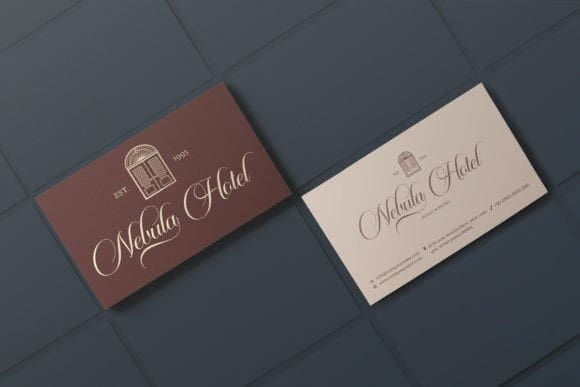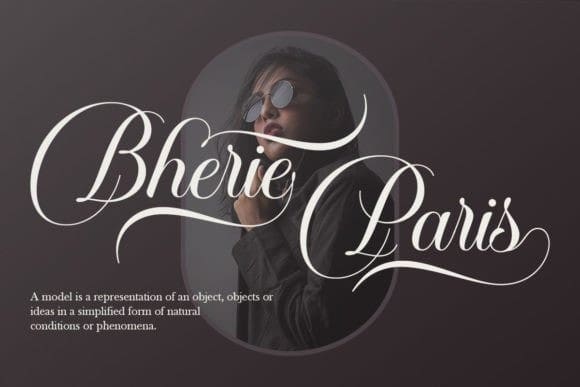
Adamiya Font
Adamiya Font is a unique and elegant handwritten font. It looks beautiful on a variety of designs requiring a personalized style, such as wedding invitations, thank you cards, greeting cards, logos, and so on.